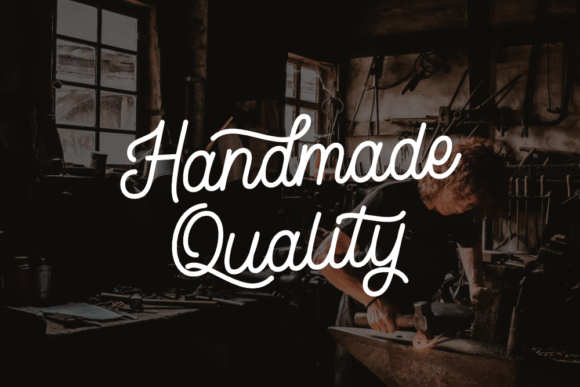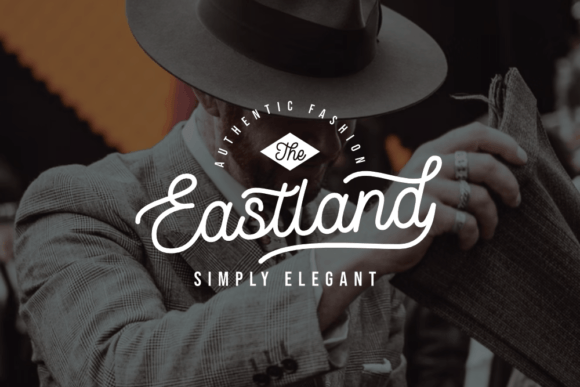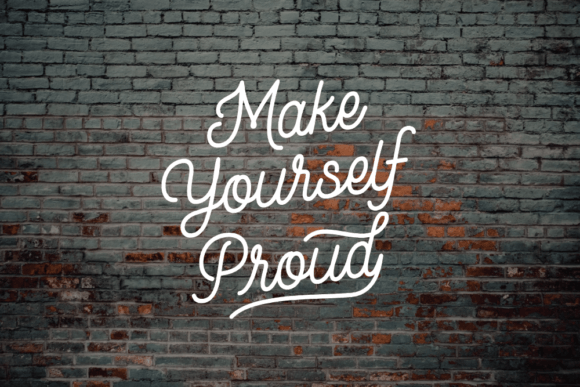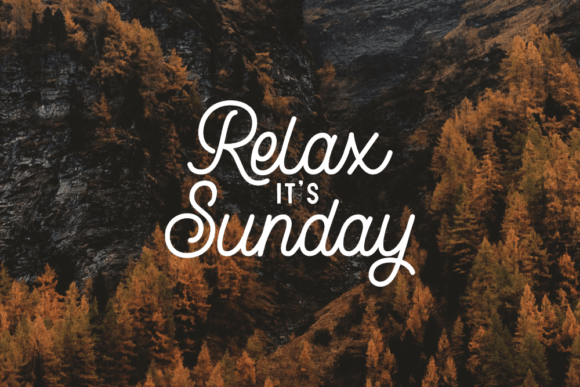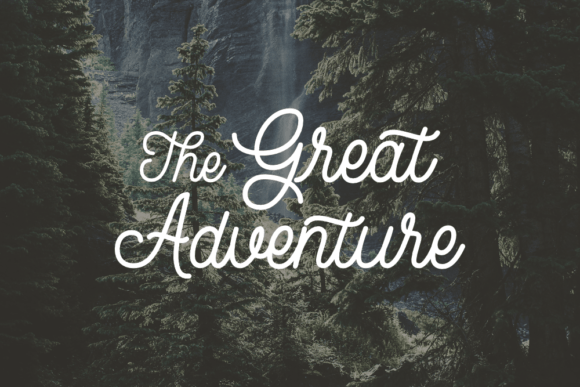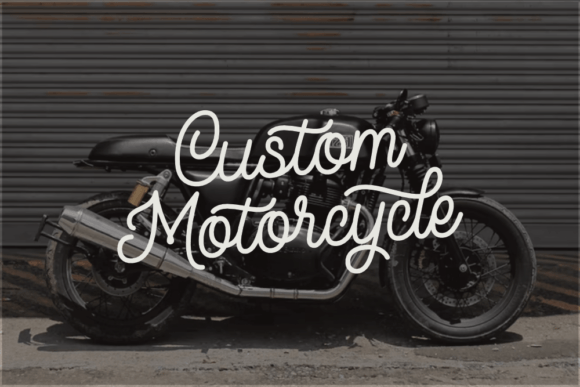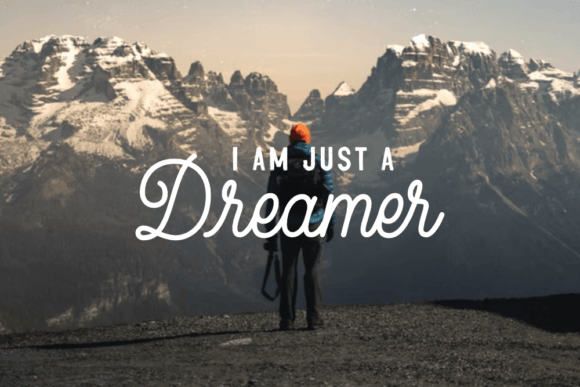
About Brittanic London Font
**Brittanic London Font: Where Casual Charm Meets Timeless Versatility**
Introducing “Brittanic London,” a monoline script font meticulously handcrafted to capture a casual charm that effortlessly blends with timeless versatility. With its down-to-earth appeal, readability, and adaptability, Brittanic London emerges as a font designed to become a true favorite across various creative projects.
At the core of “Brittanic London” is its casual charm, creating an approachable and friendly aesthetic. The monoline script features characters that appear wonderfully down-to-earth, making it readable and exceptionally versatile. This font is more than just a typeface; it’s a dependable choice that seamlessly adapts to diverse design needs.
The casual charm of “Brittanic London” opens up a world of creative possibilities. Imagine it enhancing the warmth of invitations, adding a touch of approachability to branding, or becoming the go-to font for projects that demand a relaxed yet polished script. This font becomes a reliable companion, effortlessly aligning with the essence of your creative vision.
The versatility of “Brittanic London” makes it suitable for various applications across different mediums. Whether you’re working on digital designs, print materials, or crafting casual yet stylish merchandise, this font becomes the dynamic brushstroke that elevates your work with an easygoing and timeless appeal.
In conclusion, “Brittanic London” is more than just a font; it’s an invitation to embrace casual charm and timeless versatility. Embrace it, and witness your designs come alive with an effortless, down-to-earth aesthetic. With “Brittanic London,” every letter becomes a brushstroke, leaving an indelible mark of approachable elegance on your design journey.